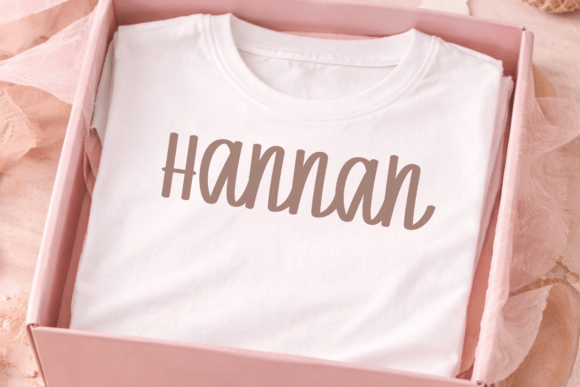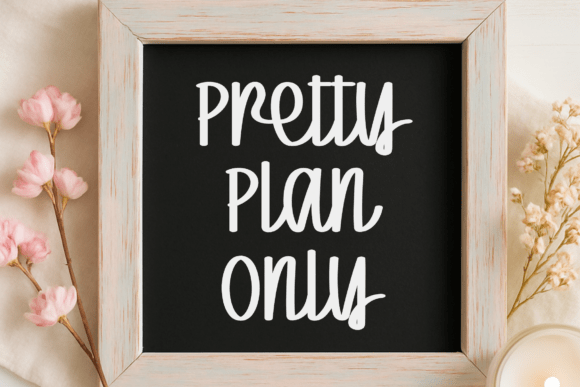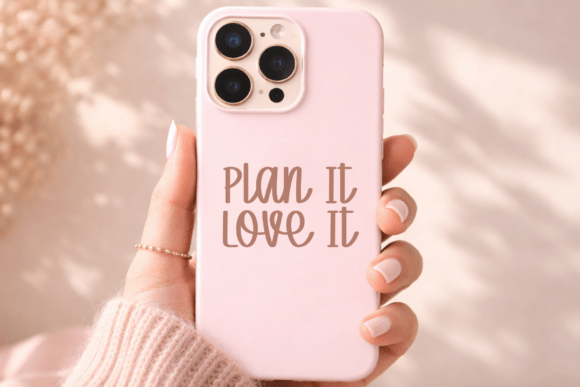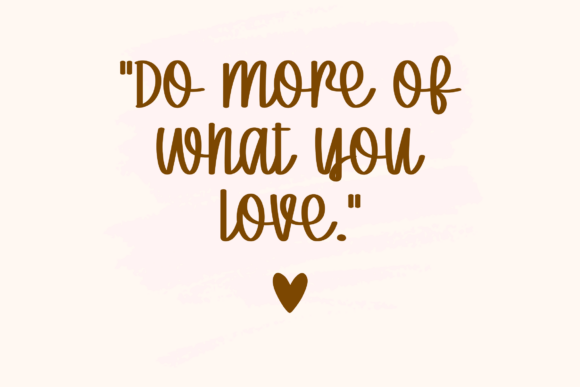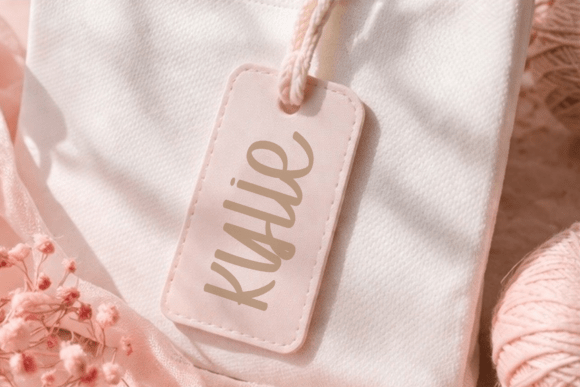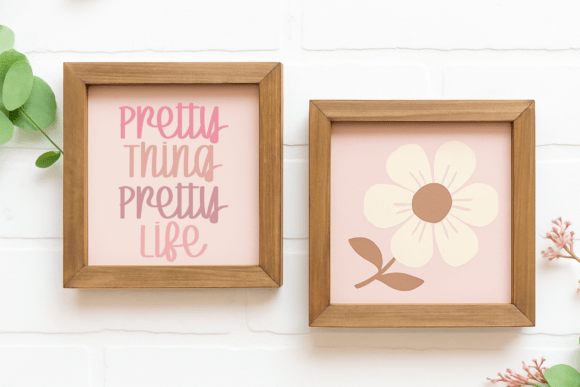
Introduction to Fairy Haven Font
As you sit in your cozy home office, surrounded by the tools of your creative trade, you stumble upon the perfect moment to start a new project. Your mind is buzzing with ideas, and your heart is filled with excitement. But, there’s one crucial element missing – the right font to bring your vision to life. That’s where Fairy Haven Font comes in – a clean and charming handwritten script font designed to infuse your creative projects with a soft and welcoming feel.
This beautifully crafted font is more than just a design resource; it’s a key to unlocking the full potential of your imagination. With its smooth curves and slightly structured letterforms, Fairy Haven Font offers a natural handwritten style while maintaining excellent clarity and readability. Whether you’re working on a Cricut cutting project or designing your brand’s identity, this font is sure to deliver high-quality results.
Key Features of Fairy Haven Font
- Fairy Haven Font is a free design resource ideal for creative projects, offering a unique and whimsical style.
- This high-quality font comes with a transparent background, making it easy to integrate into various design elements.
- Fairy Haven Font is designed to be highly versatile, suitable for use in various contexts, including digital art, print materials, and web design.
- The font features a high resolution of 300 DPI, ensuring crisp and clear text rendering.
- With its intricate details and ornate design, Fairy Haven Font is perfect for adding a touch of magic to your creative project.
Honest Review: Fairy Haven Font
I recently stumbled upon the Fairy Haven Font, and I must say it’s a lovely addition to my design resource collection. The font itself is a high-quality, elegant script that’s perfect for creative projects that require a touch of whimsy.
- ✨ High-quality design: The font is well-crafted, with smooth lines and a consistent feel.
- ✨ Versatile: The Fairy Haven Font can be used for a variety of projects, from wedding invitations to children’s book illustrations.
- ⚠️ Limited character set: The font only includes a limited set of characters, which may not be suitable for longer texts or formal documents.
- ⚠️ Transparent background: The font’s design may not work well with transparent backgrounds, which can make it difficult to use in certain design scenarios.
Overall, I’m impressed with the Fairy Haven Font. While it may have some limitations, its high-quality design and versatility make it a valuable addition to any design resource collection.
Customization and Tips
To get the most out of the Fairy Haven Font, consider using a transparent background to make your text stand out. You can also experiment with different font sizes and styles to create a unique look. Additionally, consider combining the Fairy Haven Font with other high-quality design resources to create a cohesive and visually appealing design.
The Fairy Haven Font is ideal for creative projects such as invitations, greeting cards, and social media graphics. Its whimsical and elegant design makes it perfect for a variety of applications, from children’s parties to weddings and anniversaries.
The Fairy Haven Font is available for free download, making it a valuable addition to any design toolkit. With its high-quality design and versatility, it’s a great resource to have at your disposal for all your creative projects.
Is the Fairy Haven Font suitable for print or digital use?
The Fairy Haven Font is designed to be versatile and suitable for both print and digital use. The transparent background version makes it easy to use in digital designs, while the font’s high-quality design ensures it looks great in print materials, such as business cards, posters, and flyers.